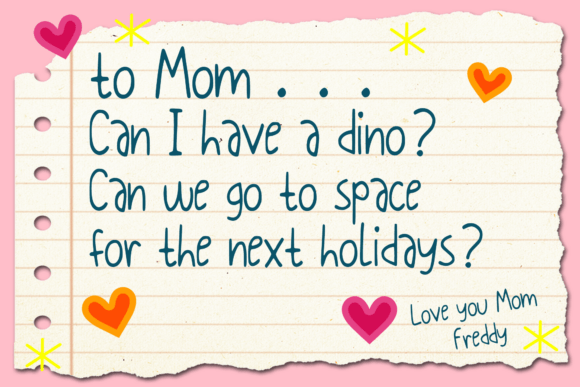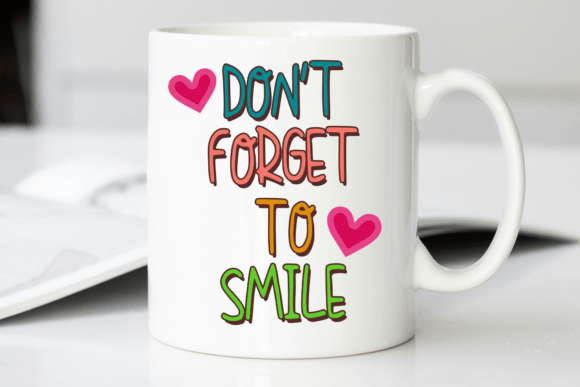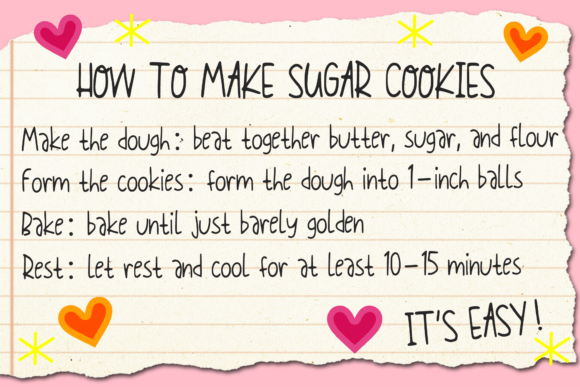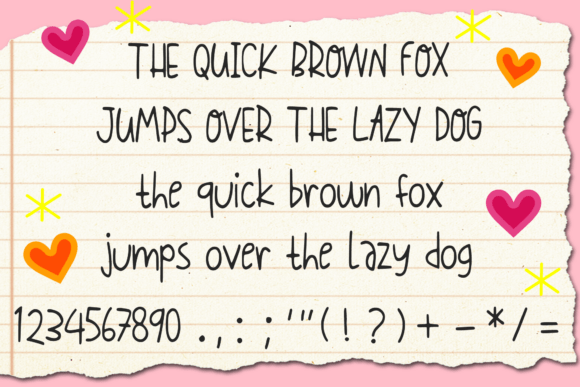
Introduction to Openhearted Handwriting Font Font
Fonts play a crucial role in design, and the Openhearted Handwriting Font font is a typeface that brings both character and versatility to any project. Whether you’re working on a branding project, a website, or a print design, the Openhearted Handwriting Font font offers a unique style that can elevate your work.
Openhearted Handwriting typeface i s a cheerful handwritten font that radiates warmth and friendliness through every stroke.
Its casual yet clear letterforms feel like notes jotted down with joy, capturing the charm of handwriting while keeping perfect readability Each Openhearted Handwritingβs curve flows with personality , giving the impression of playfulness and sincerity that makes words feel alive.
The Openhearted Handwriting Font font is more than just a typeface β it’s a design tool that helps you communicate your message with style and clarity. Its unique character set and versatile design make it suitable for a wide range of applications, from elegant invitations to bold headlines.
With its carefully crafted letterforms and balanced proportions, the Openhearted Handwriting Font font ensures readability and visual appeal across all mediums.
What makes Openhearted Handwriting Font font special?
The Openhearted Handwriting Font font stands out with its unique design, exceptional readability, and versatility across various design applications.